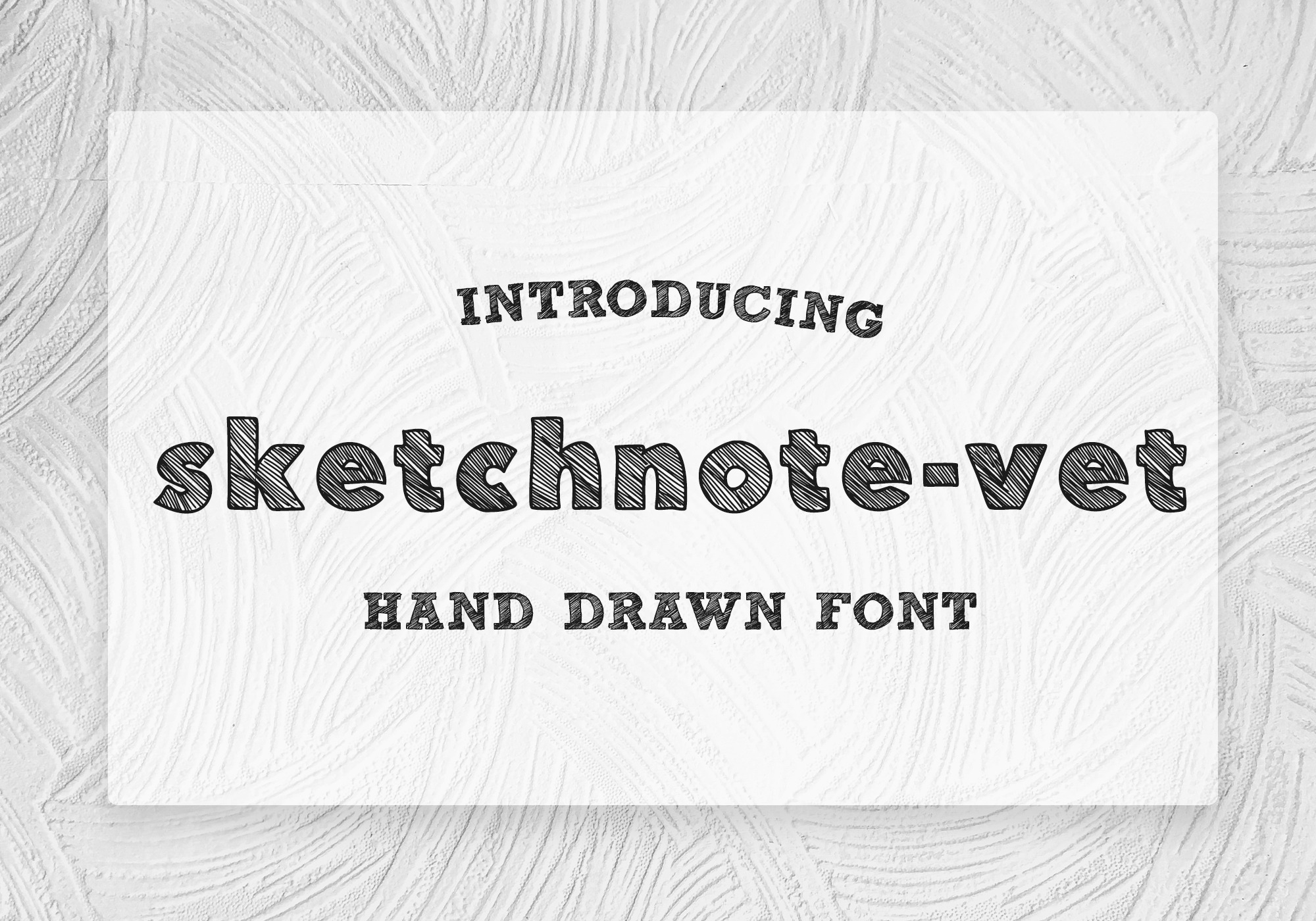
Sketchnote Vet Font - Light Version
Sketchnote Vet is a unique handwritten font that represents note-taking or sketchnotes. This font is also perfect for digital projects such as logos, branding, identity, invitations, etc. The font includes upper and lowercase basic characters, numbers, marks, and punctuation.